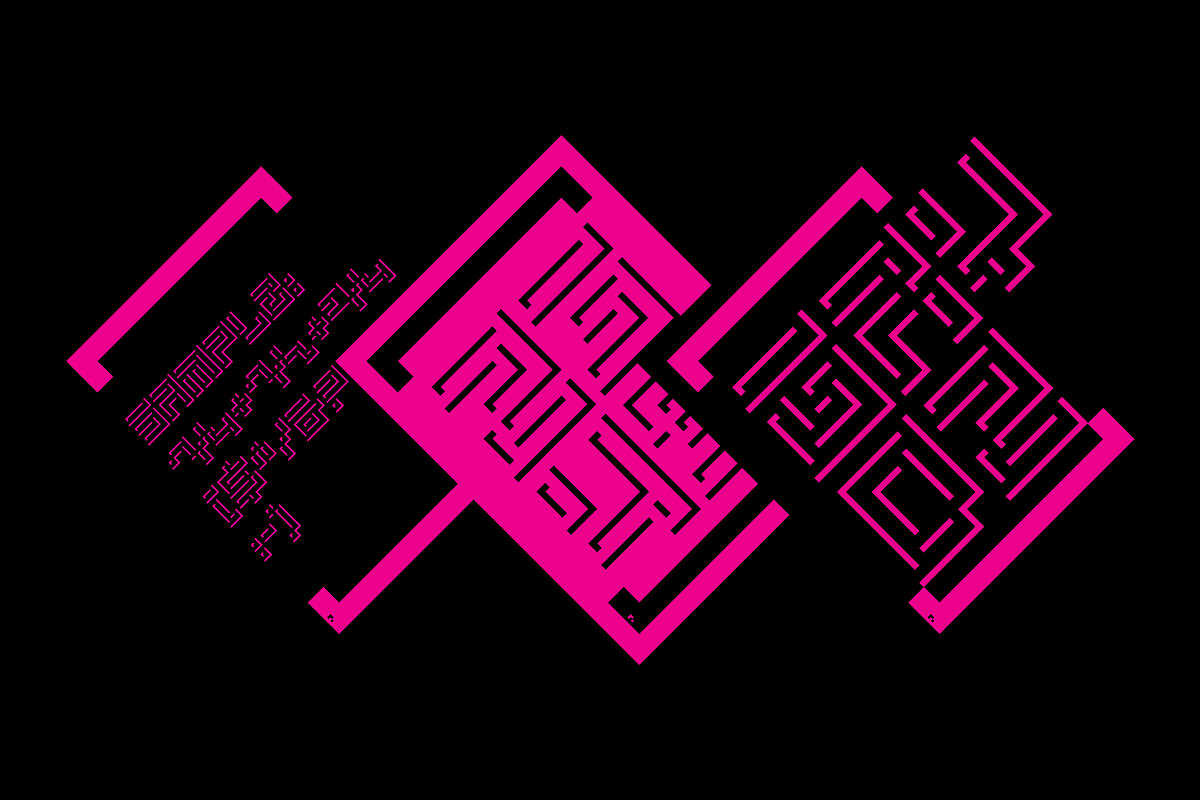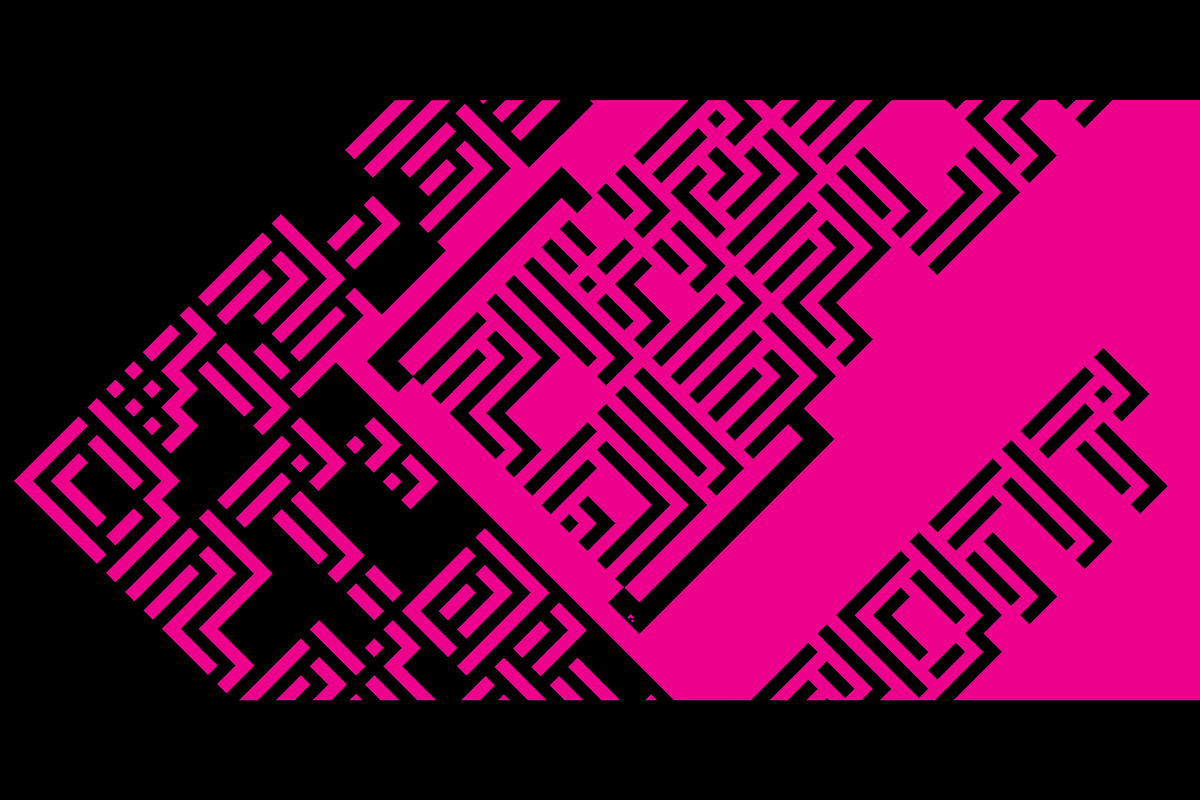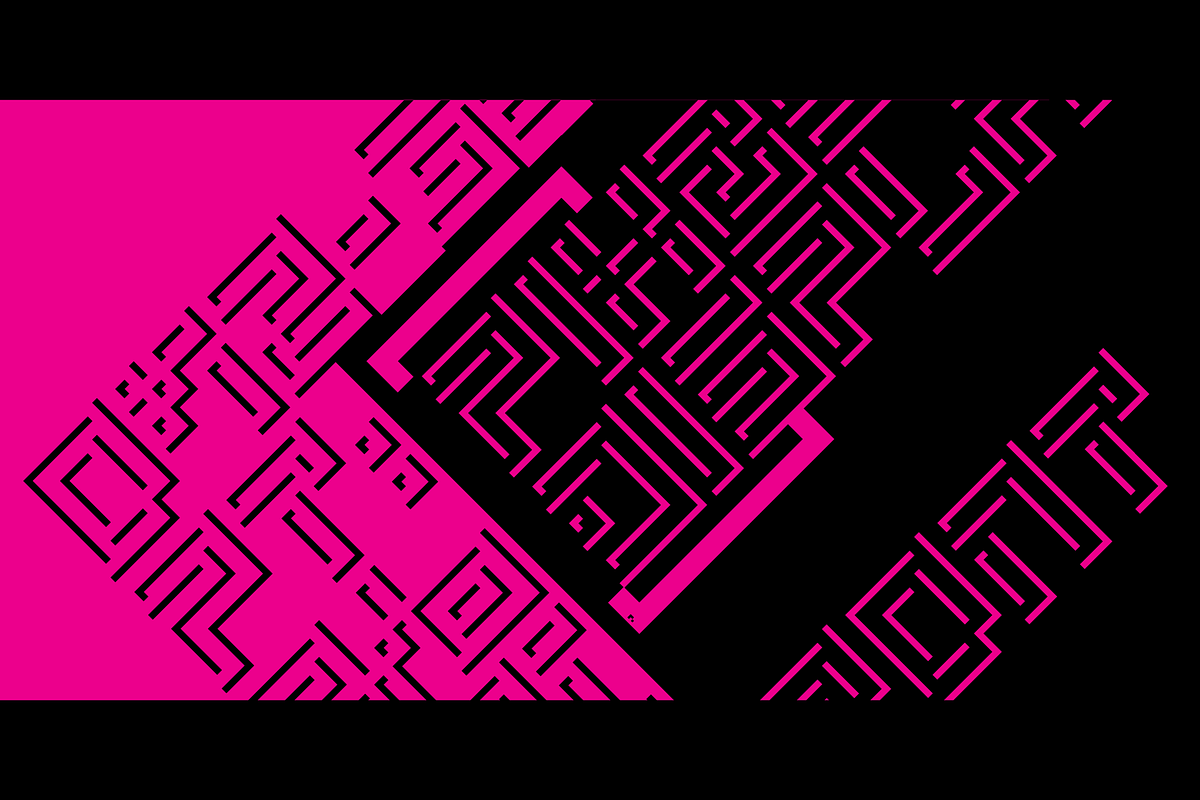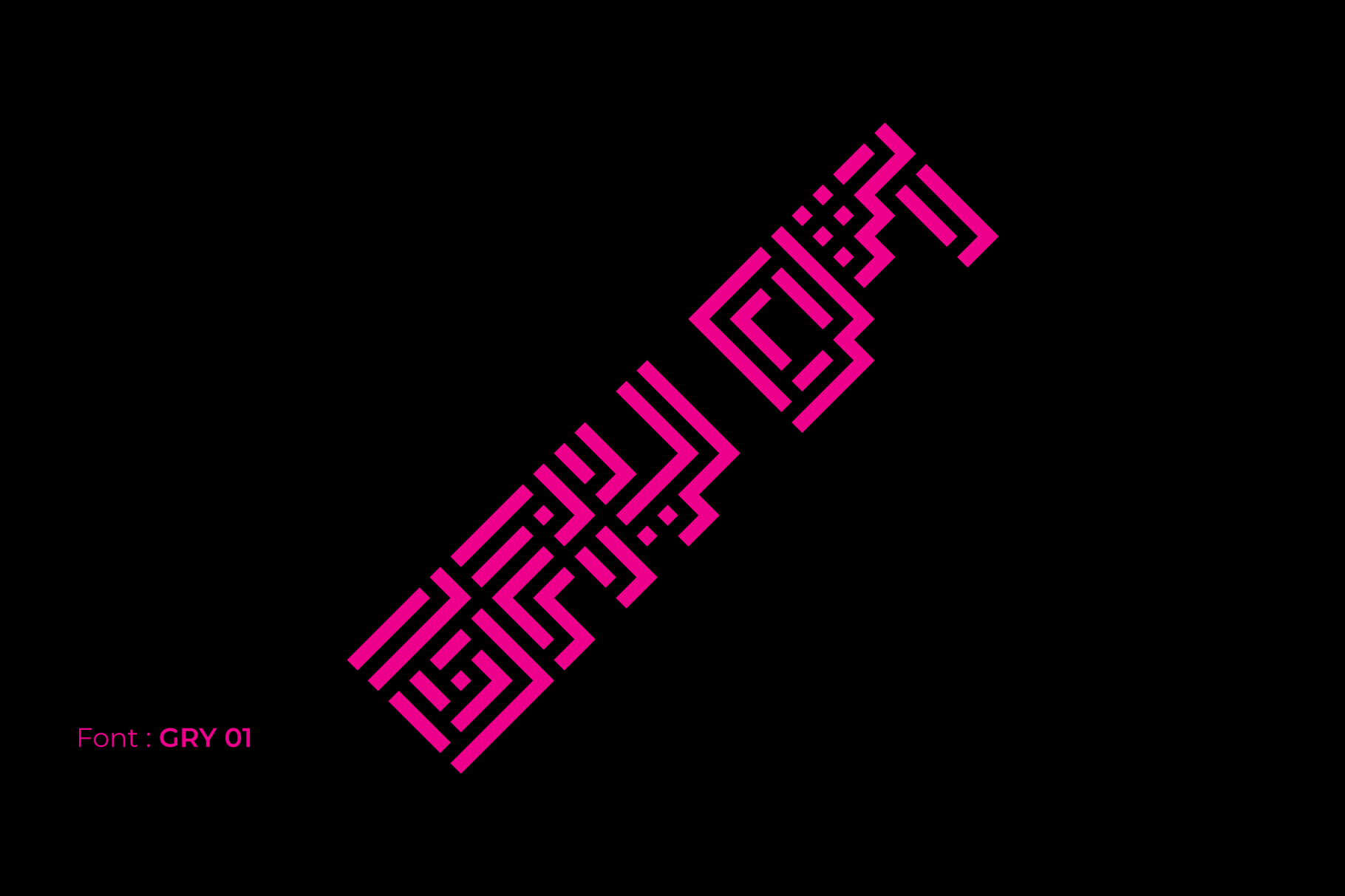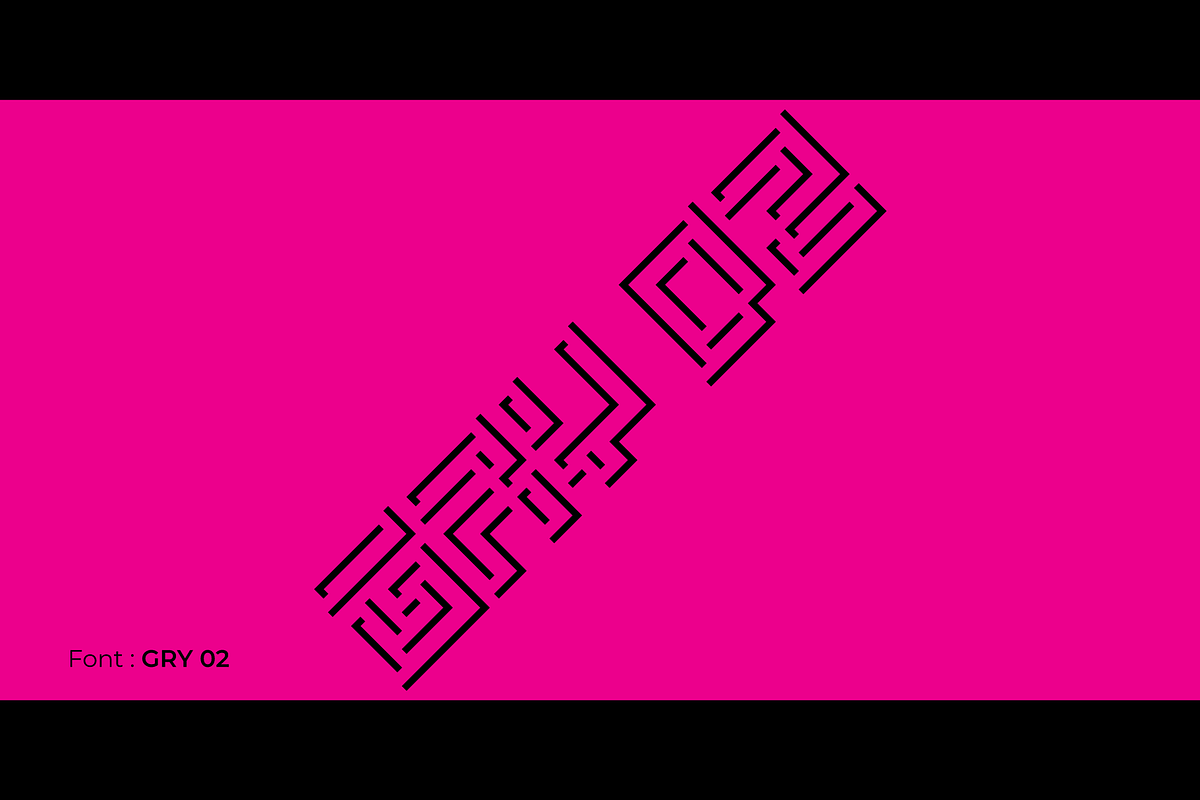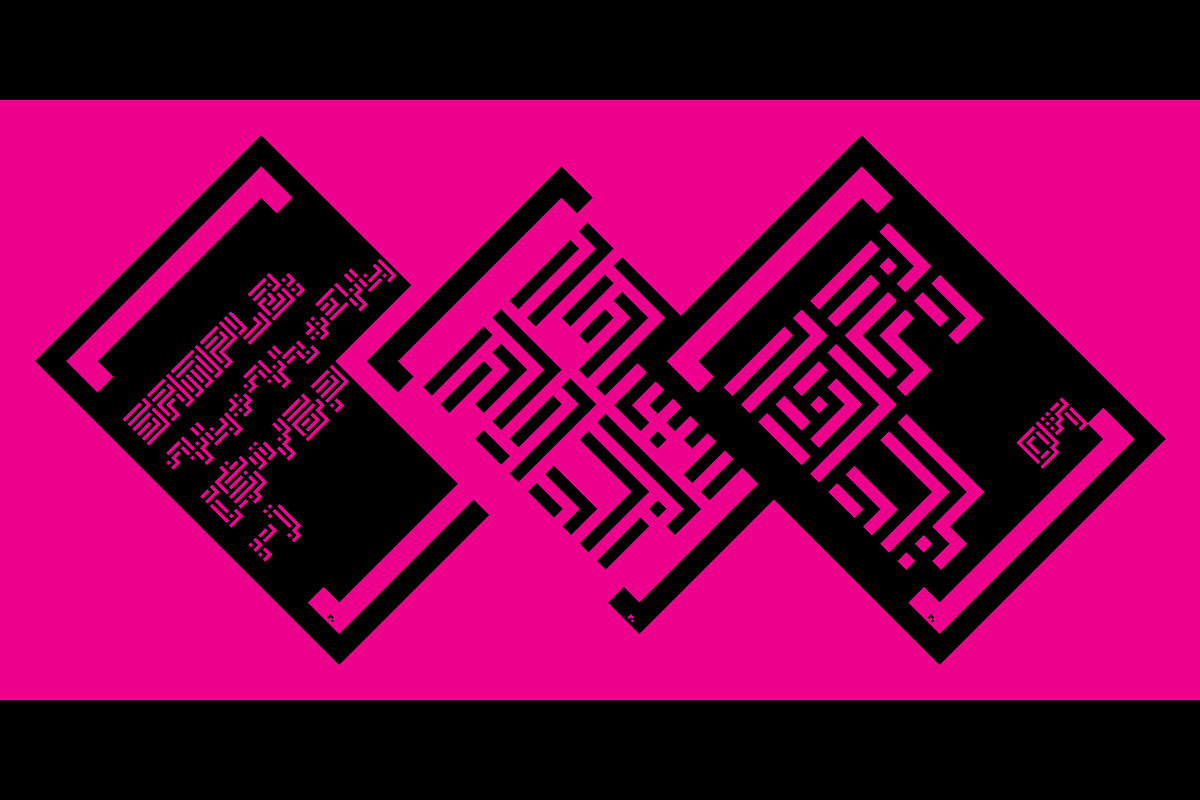
GRY Font Family
Gry 01 and Gry 02 are a striking pixel-art font family, perfect for anyone looking to make a bold visual statement. While closely related to the Gra typeface and sharing the same pixelated, geometric foundation, Gry features a slightly different letter construction, resulting in its own unique visual identity.
Gry showcase a complex interplay of layered squares, creating a strong sense of depth and dimension. Gry 01 offers a more solid and defined appearance, while Gry 02 has a more delicate feel, with thinner outlines that emphasize depth and light.
The Gry typeface is ideal for creating bold, futuristic designs. Its intricate and experimental nature makes it perfect for a wide range of applications, including:
- Headlines and titles for futuristic, sci-fi, and cyberpunk projects
- Logos and branding for tech companies and gaming brands
- Poster design and print media
- Experimental typography and digital art
- Geometric shapes: Complex constructions of squares and rectangles.
- Pixel art: A retro-inspired aesthetic with a modern twist.
- Depth and dimension: Layered elements create a sense of three-dimensionality.
- Unique and experimental: A bold departure from traditional typography.
- Versatile: Suitable for a wide range of design projects.
With their distinct and experimental style, these fonts are a bold and striking choice for designers looking to create visually impactful work.